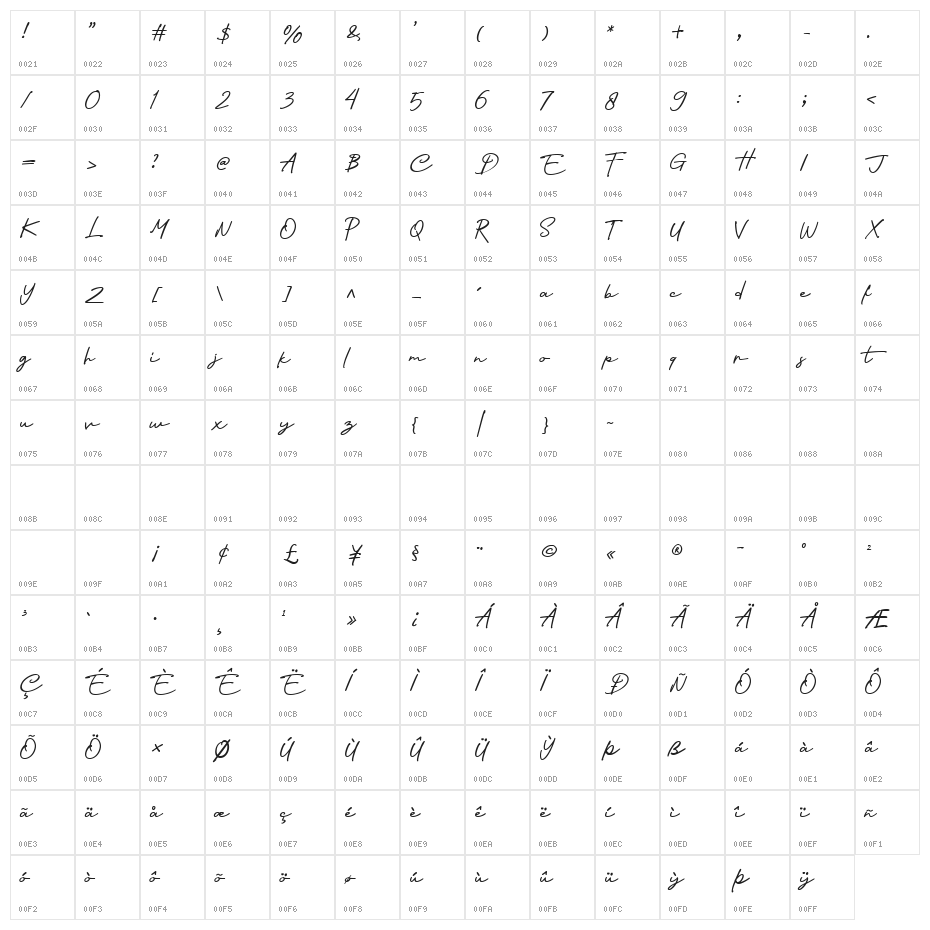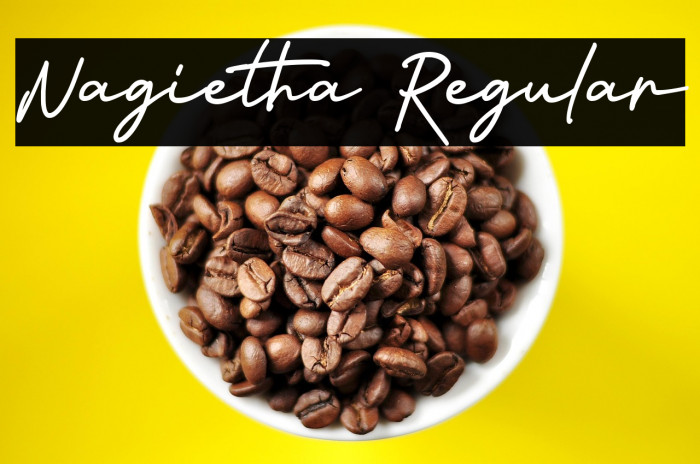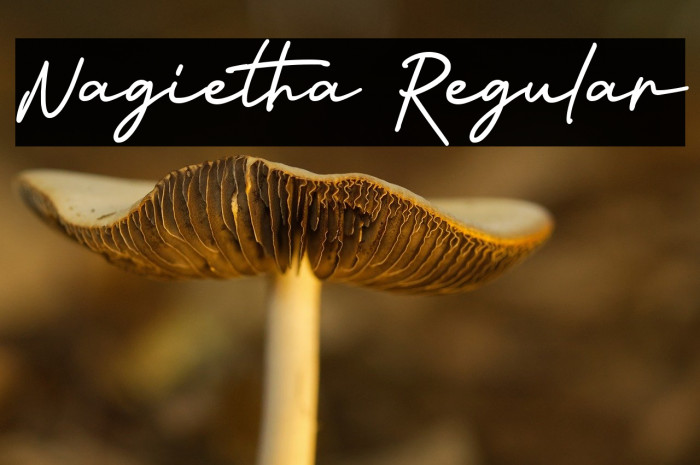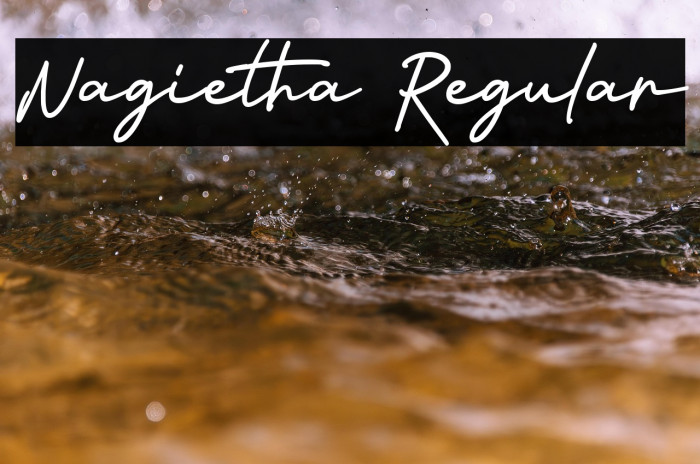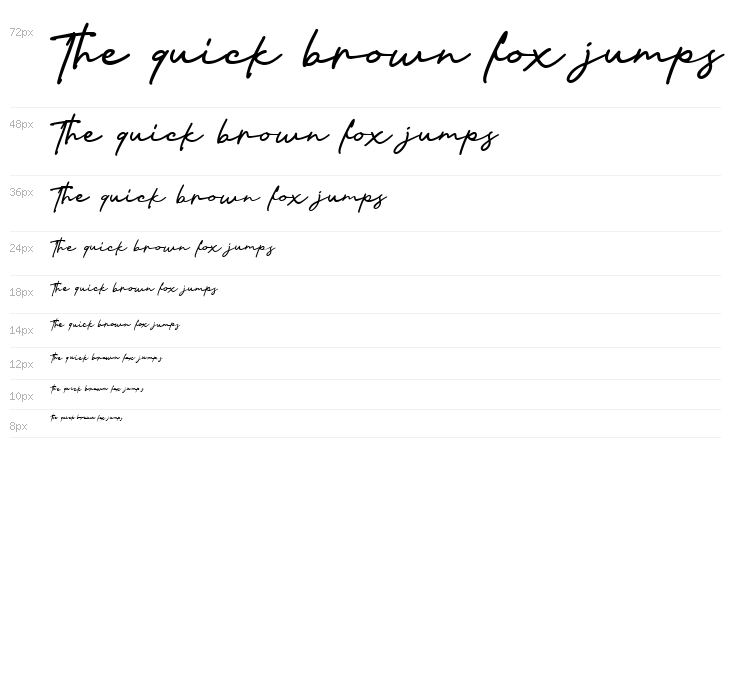
Nagietha Regular Font
Nagietha Regular Description
This font exudes a casual and elegant handwritten style, characterized by its fluid and connected letterforms. The uppercase letters are bold and slightly slanted, giving a dynamic and lively feel. The lowercase letters maintain a consistent flow, enhancing readability while retaining a personal touch. Numbers and special characters are crafted with the same attention to detail, ensuring uniformity across all glyphs. The overall appearance is both sophisticated and approachable, making it suitable for a variety of design applications.
| Proposed Projects | Ideal for wedding invitations, personal branding, greeting cards, and social media graphics. |